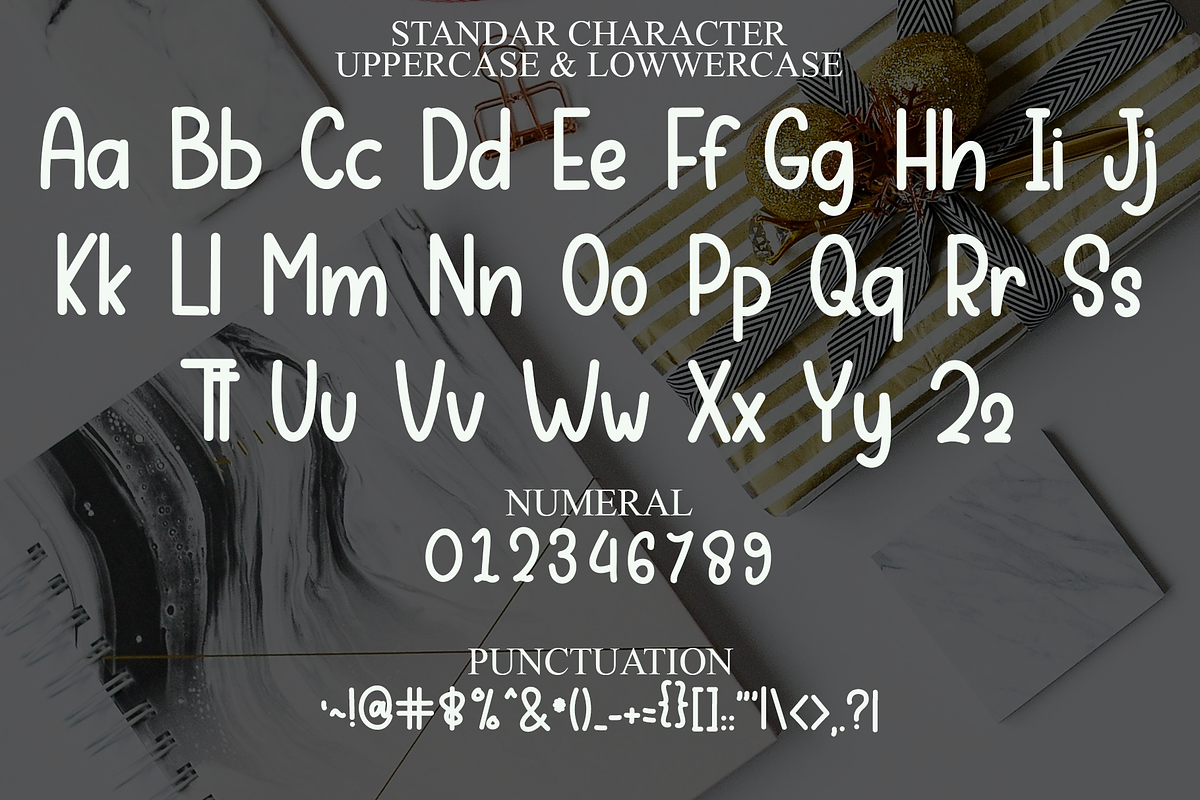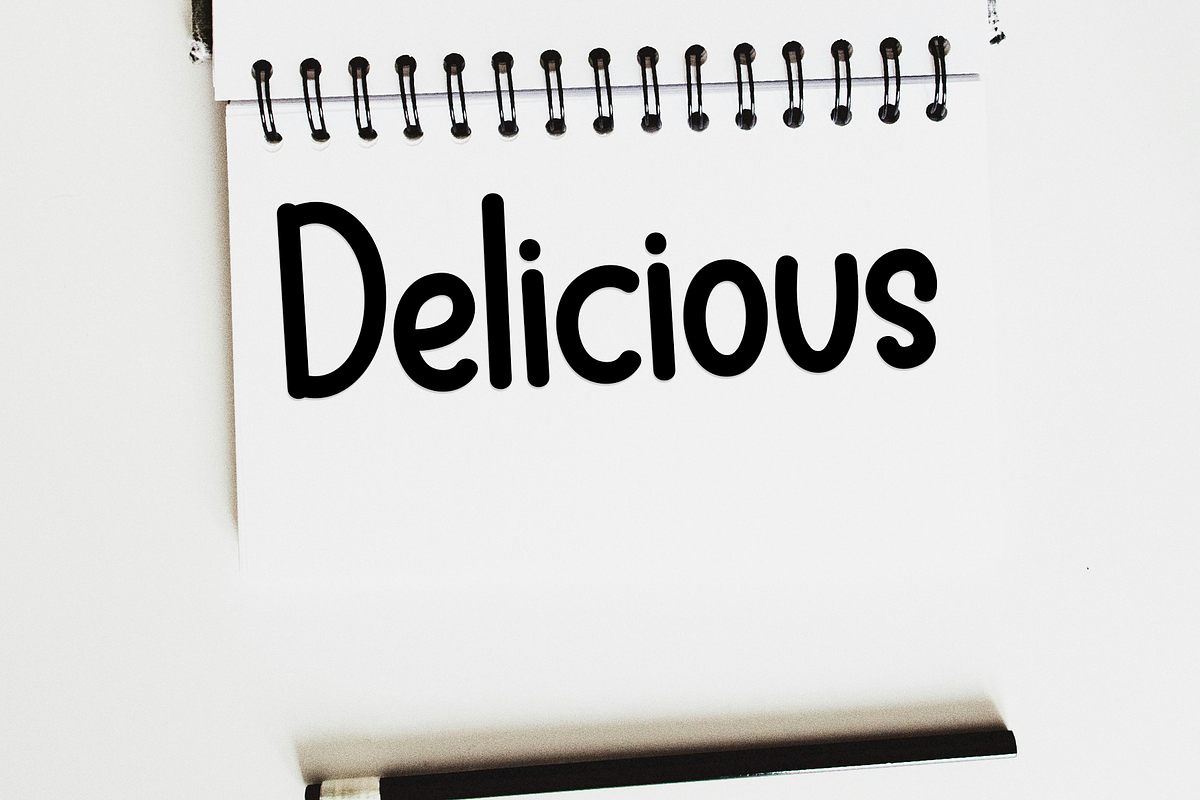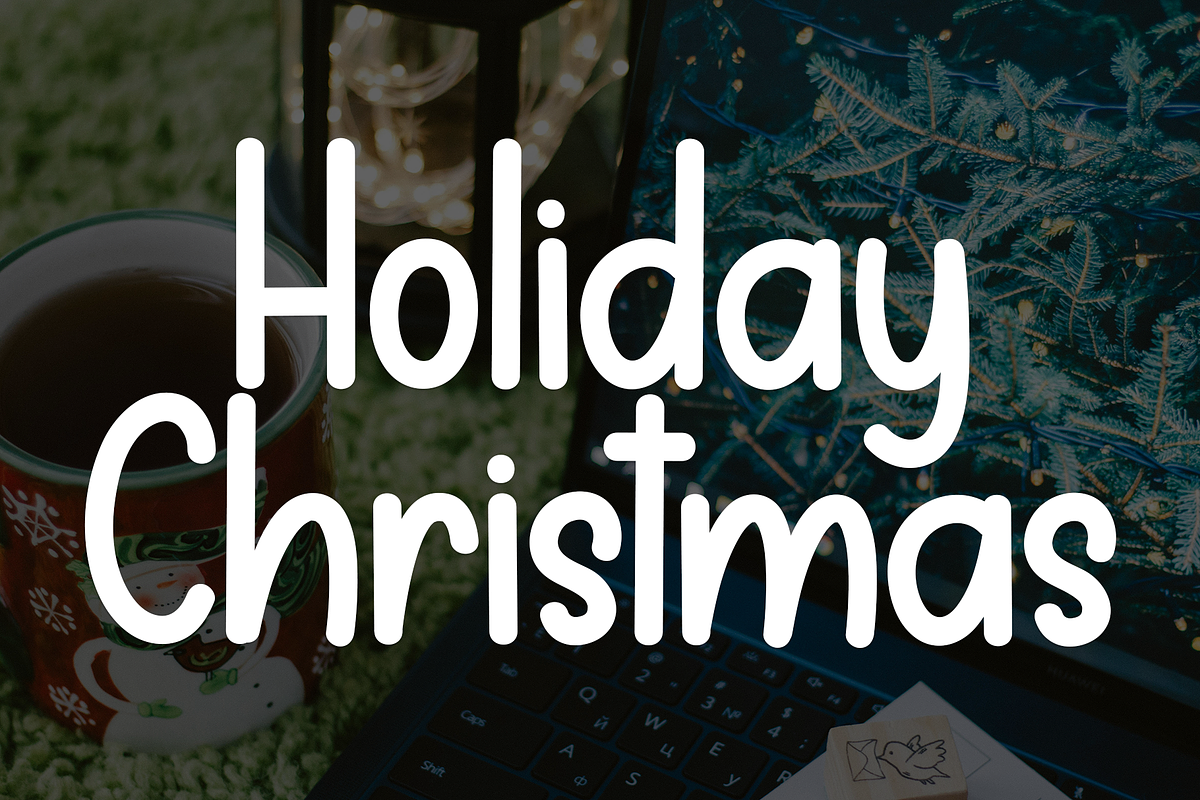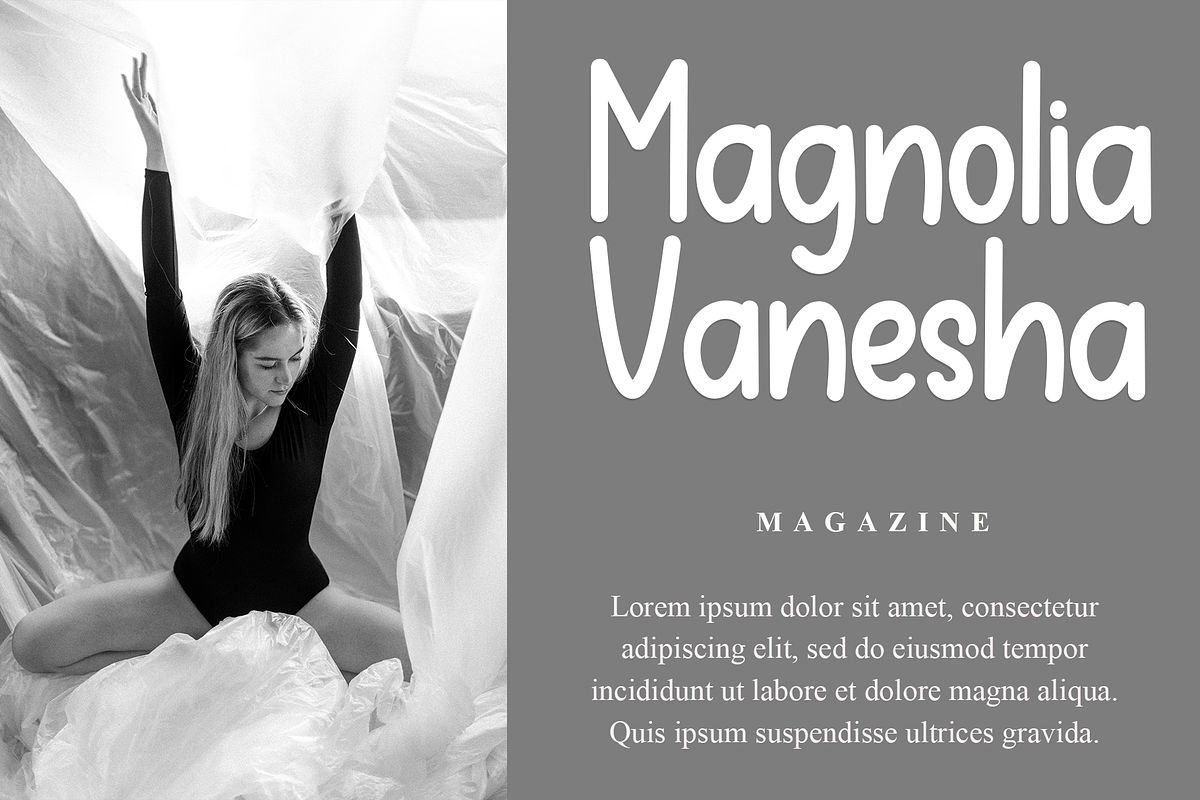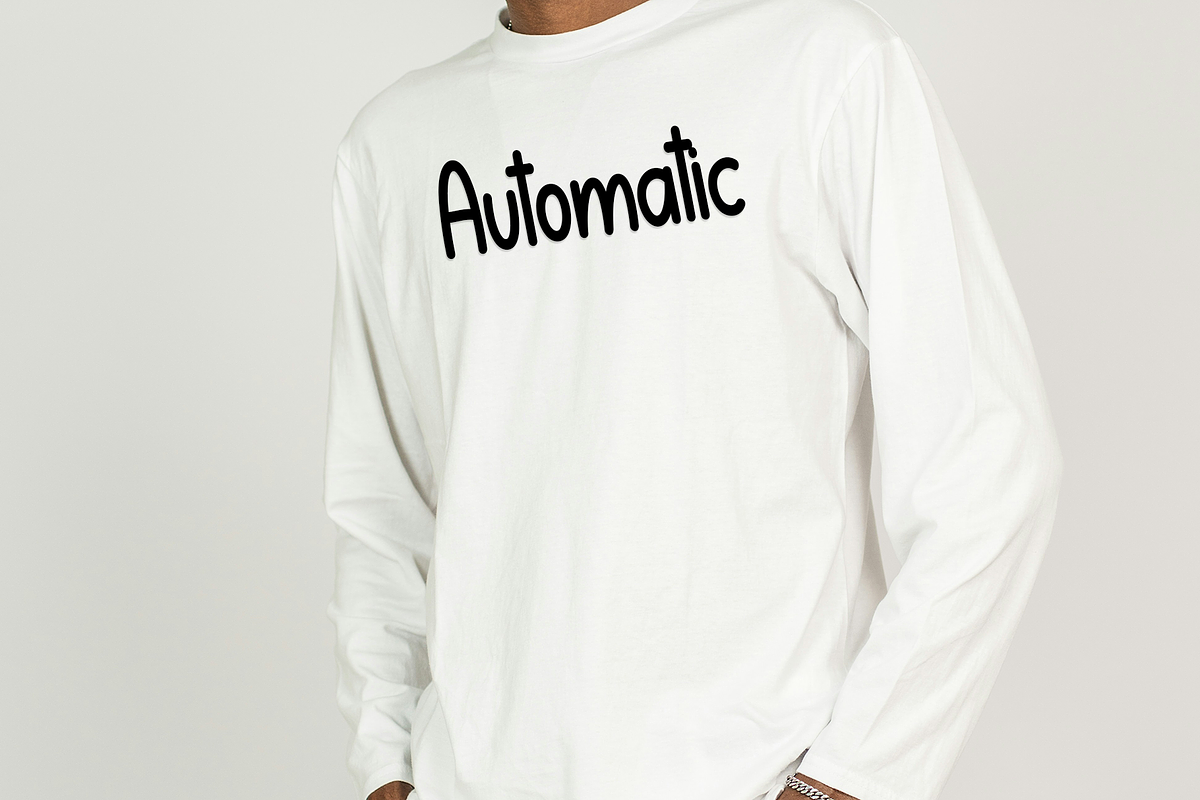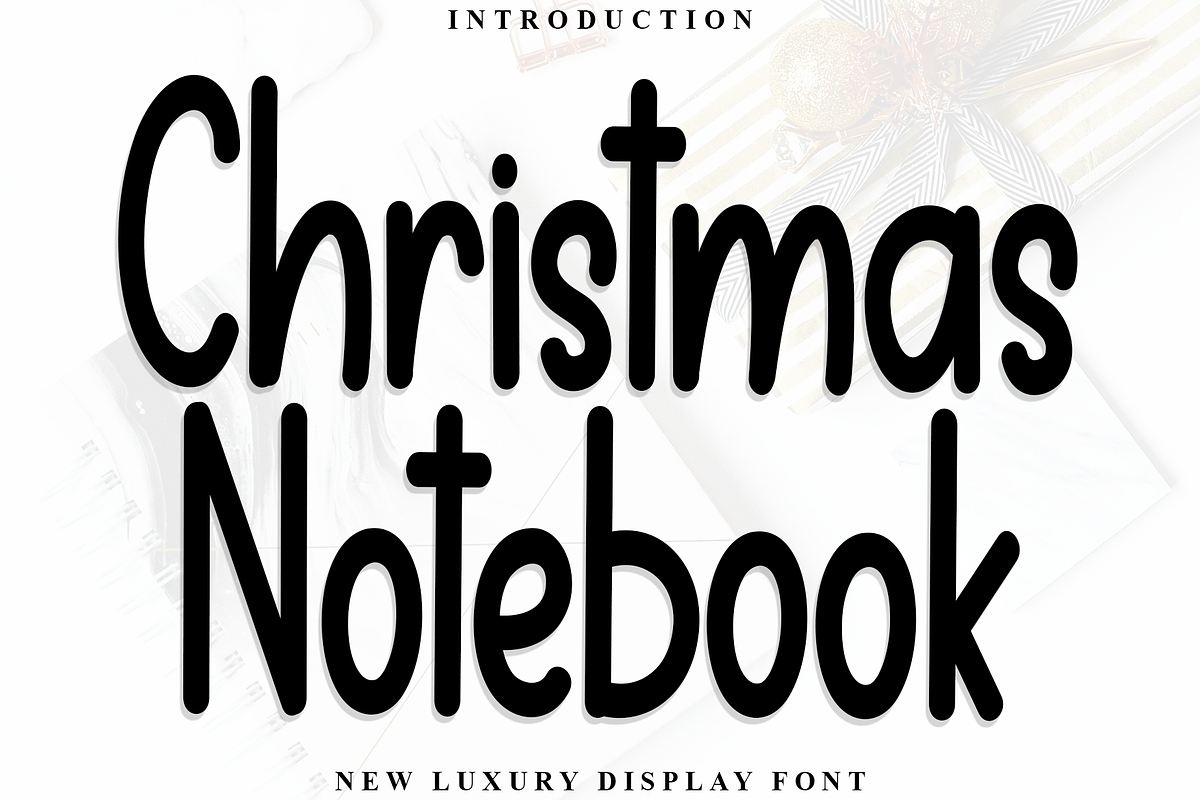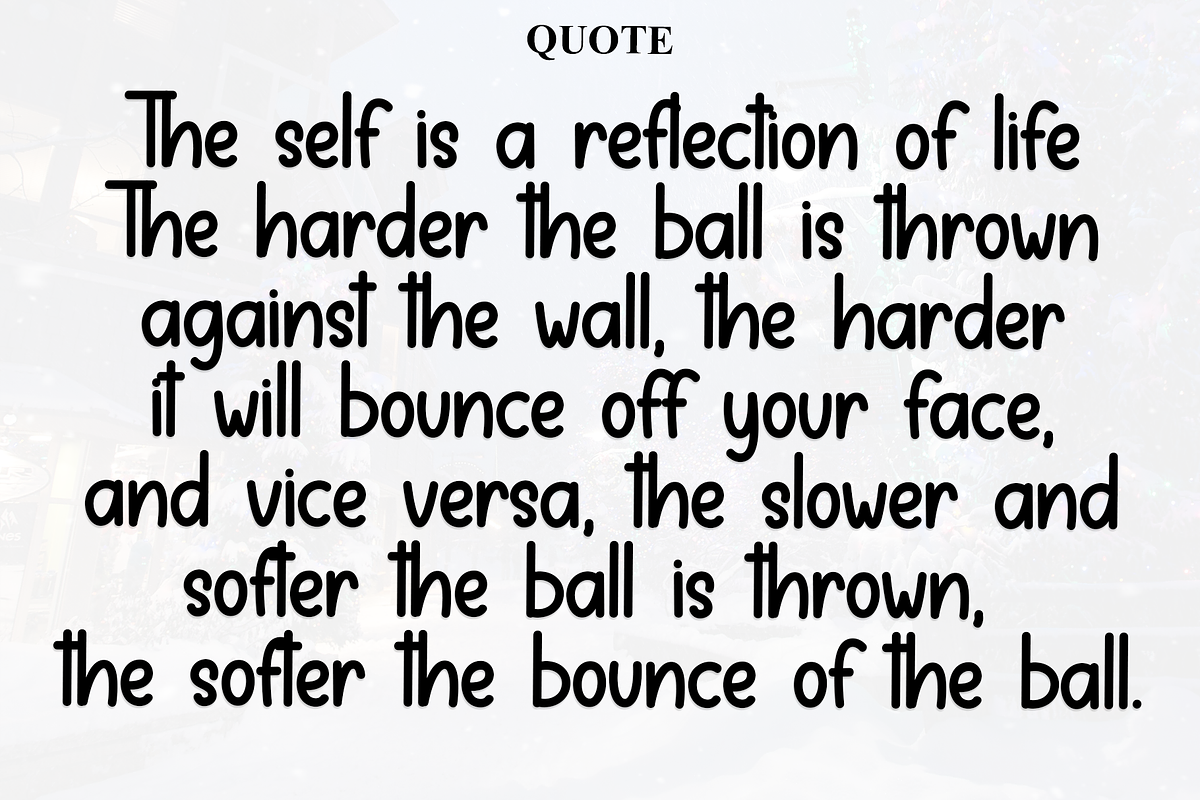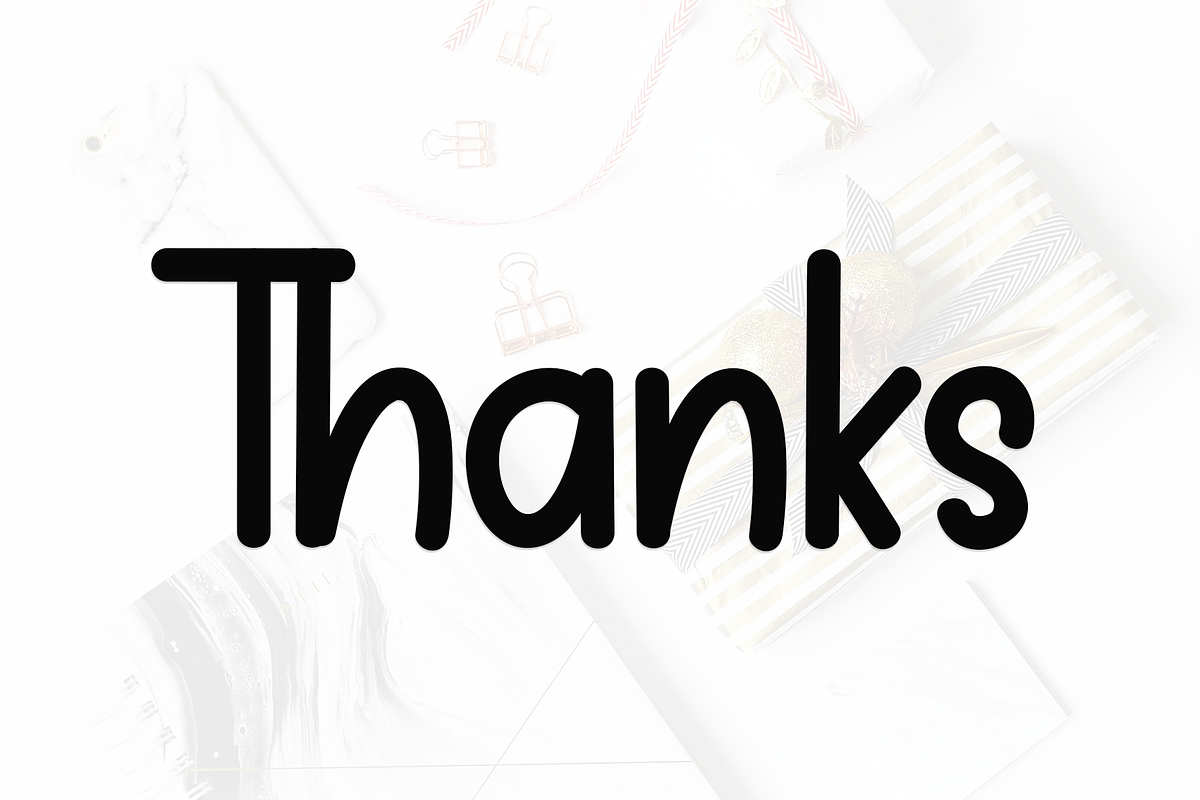
Christmas Notebook
Christmas Notebook is a beautiful and eye-catching font designed with a soft, unique touch. Its distinctive strokes give it a special character, making it meaningful and versatile for future use. With various characters, it’s perfect for design projects, crafts, and other creative works.